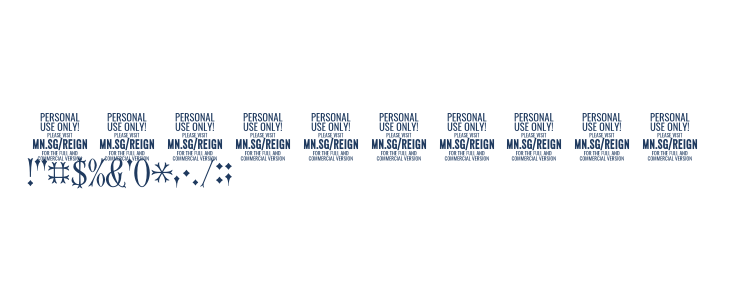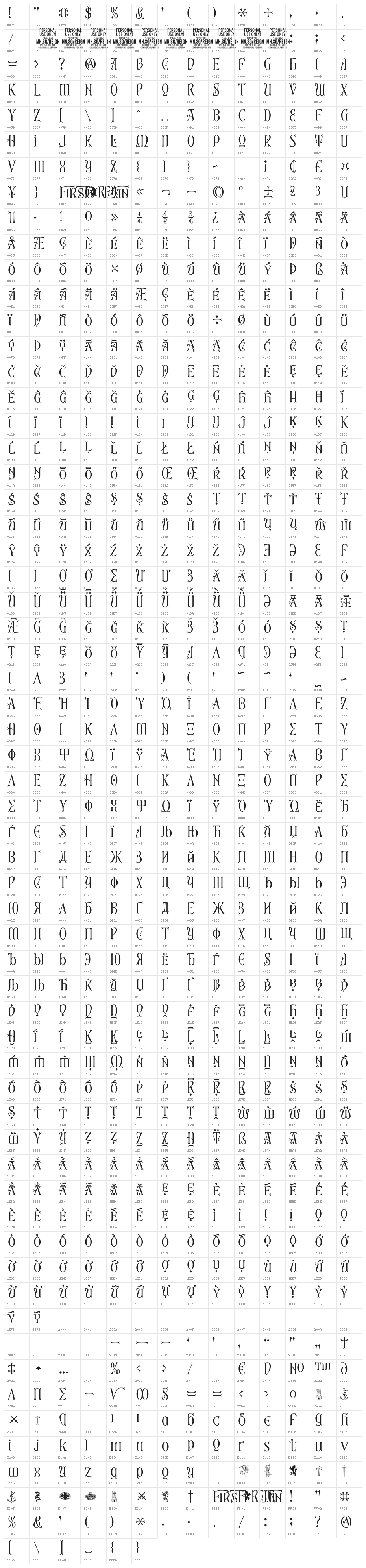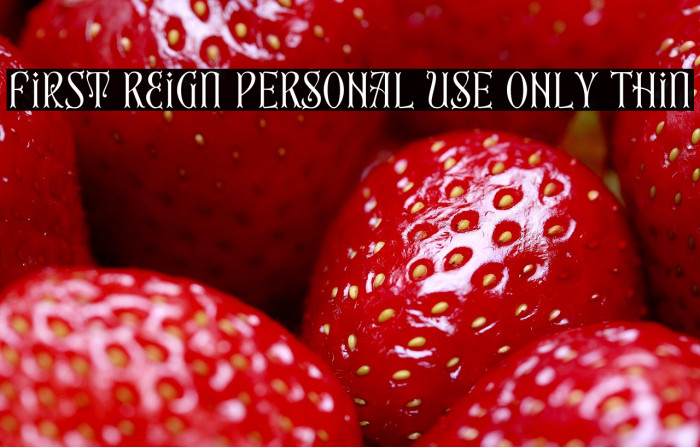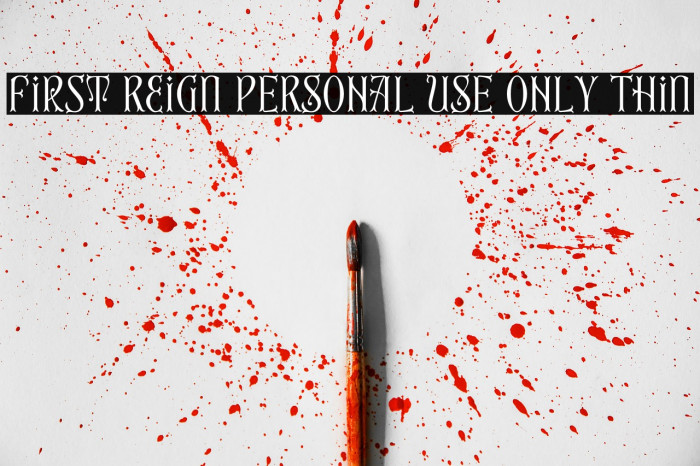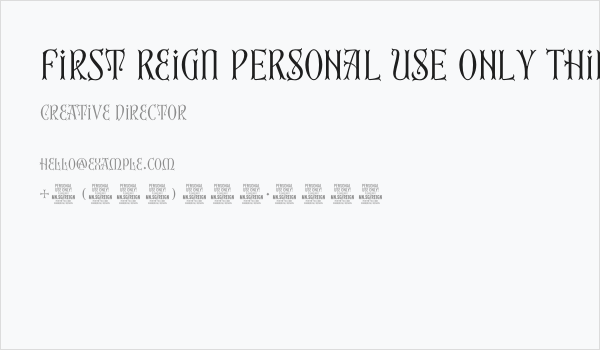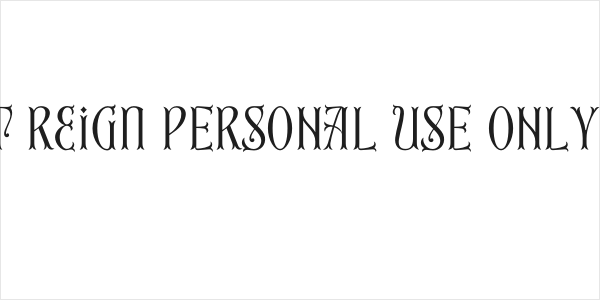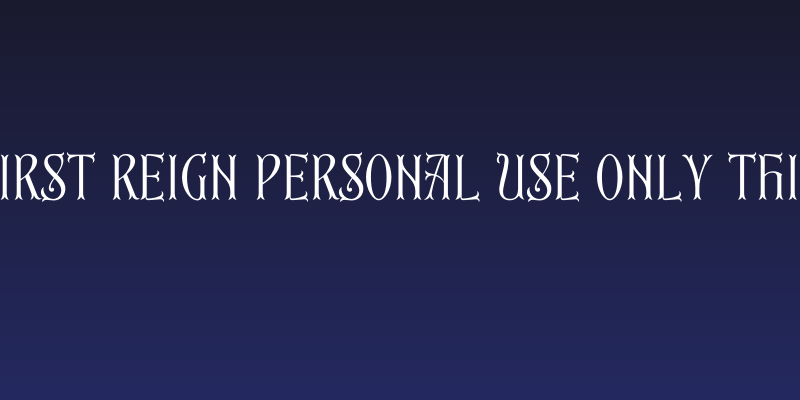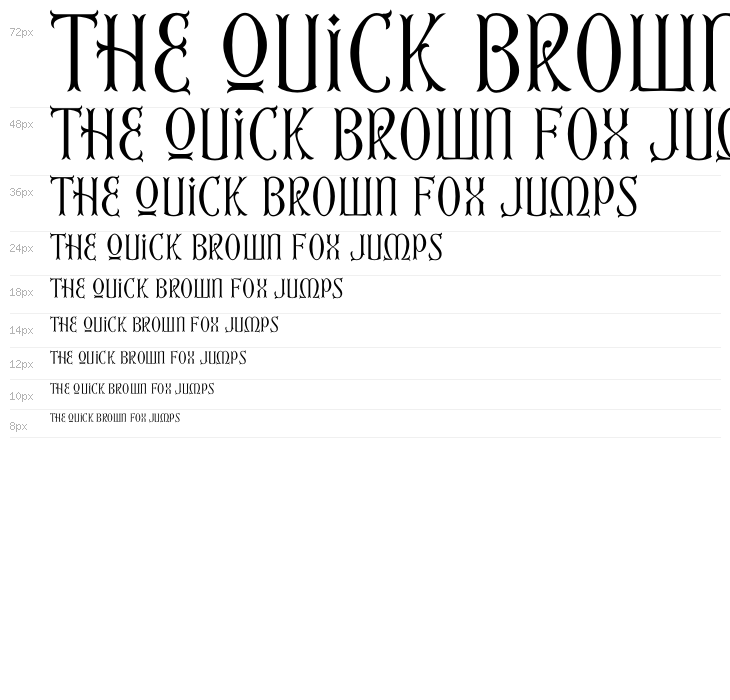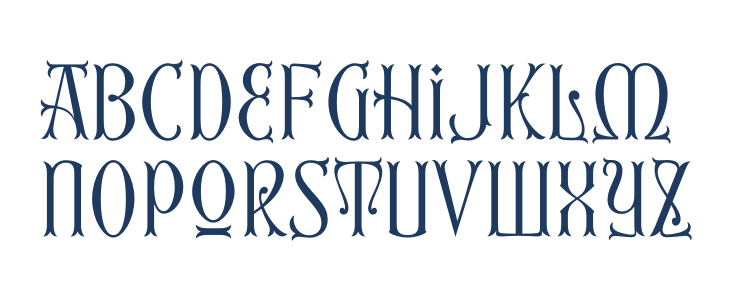
First Reign PERSONAL USE ONLY Thin Font
First Reign PERSONAL USE ONLY Thin Description
This font features a distinct and ornate style, characterized by its sharp, angular lines and decorative elements. The uppercase letters exhibit a gothic influence with elongated vertical strokes and intricate serifs, giving it a regal and dramatic appearance. The lowercase letters maintain a similar aesthetic, with consistent line weights and unique flourishes that add to its decorative nature. The numerals and special characters follow the same stylistic cues, ensuring a cohesive look across all glyphs. This font's thin weight and high contrast between thick and thin strokes enhance its elegance and sophistication.
| Proposed Projects | Ideal for use in branding, invitations, posters, and any project requiring a touch of elegance and drama. |